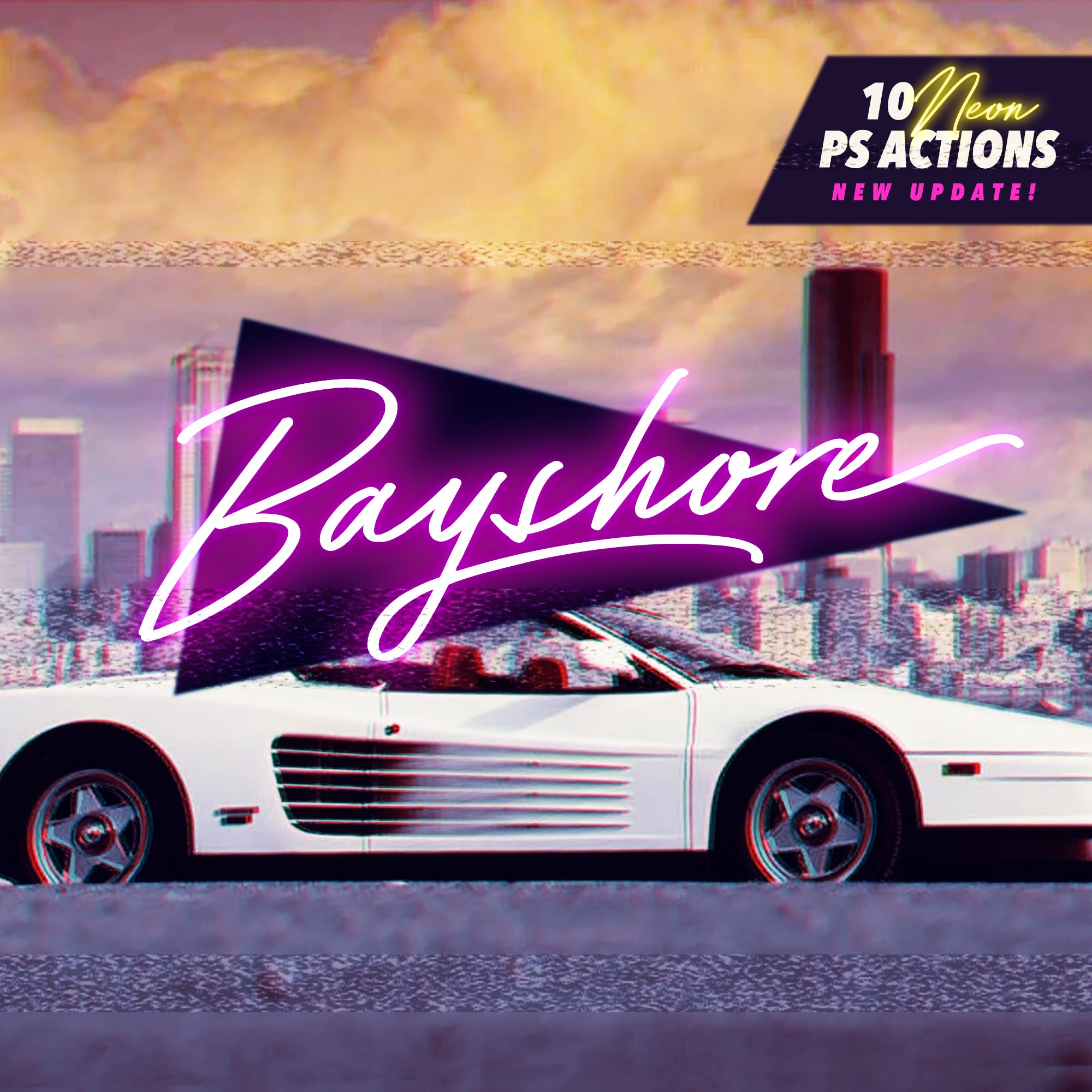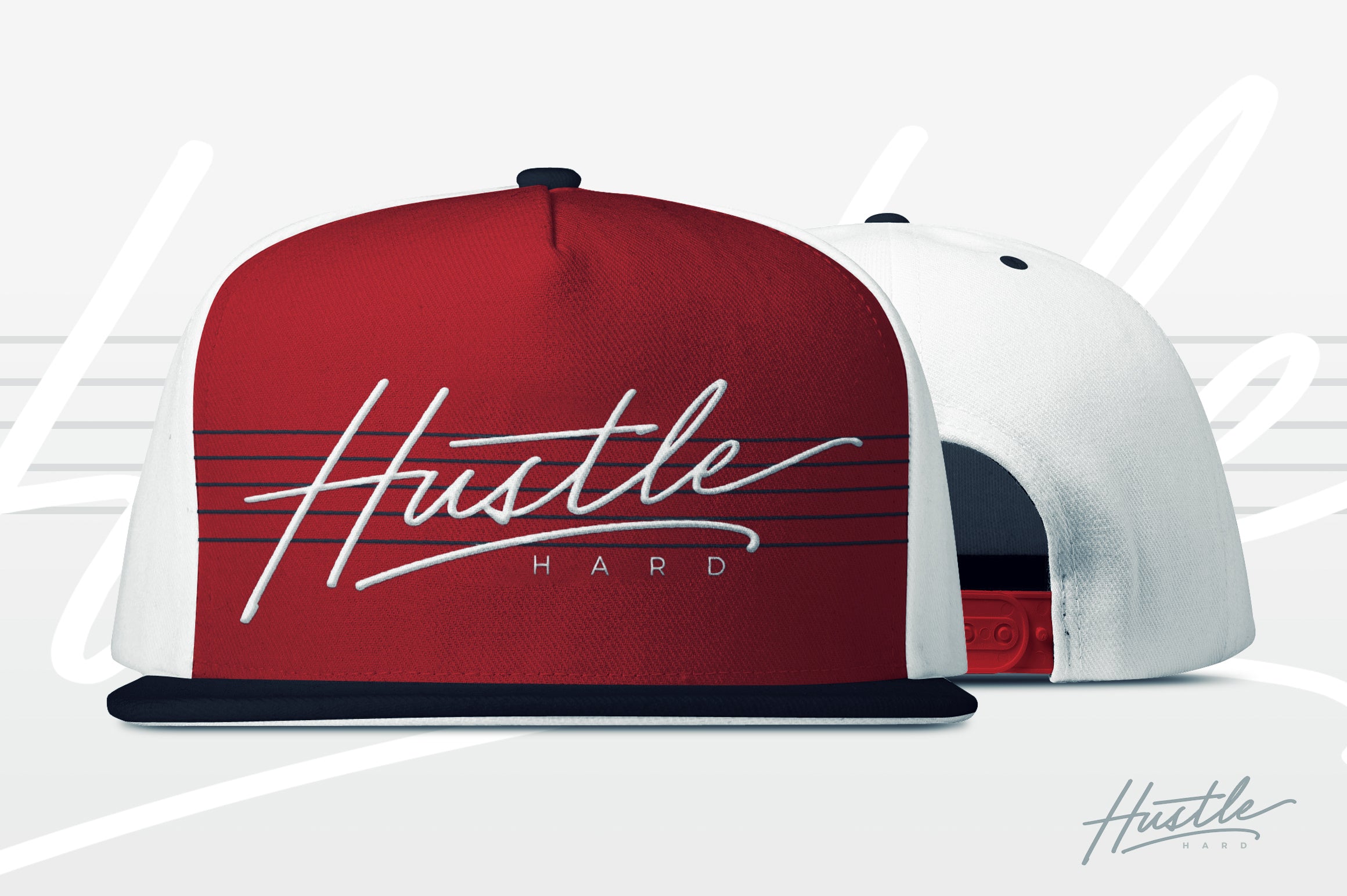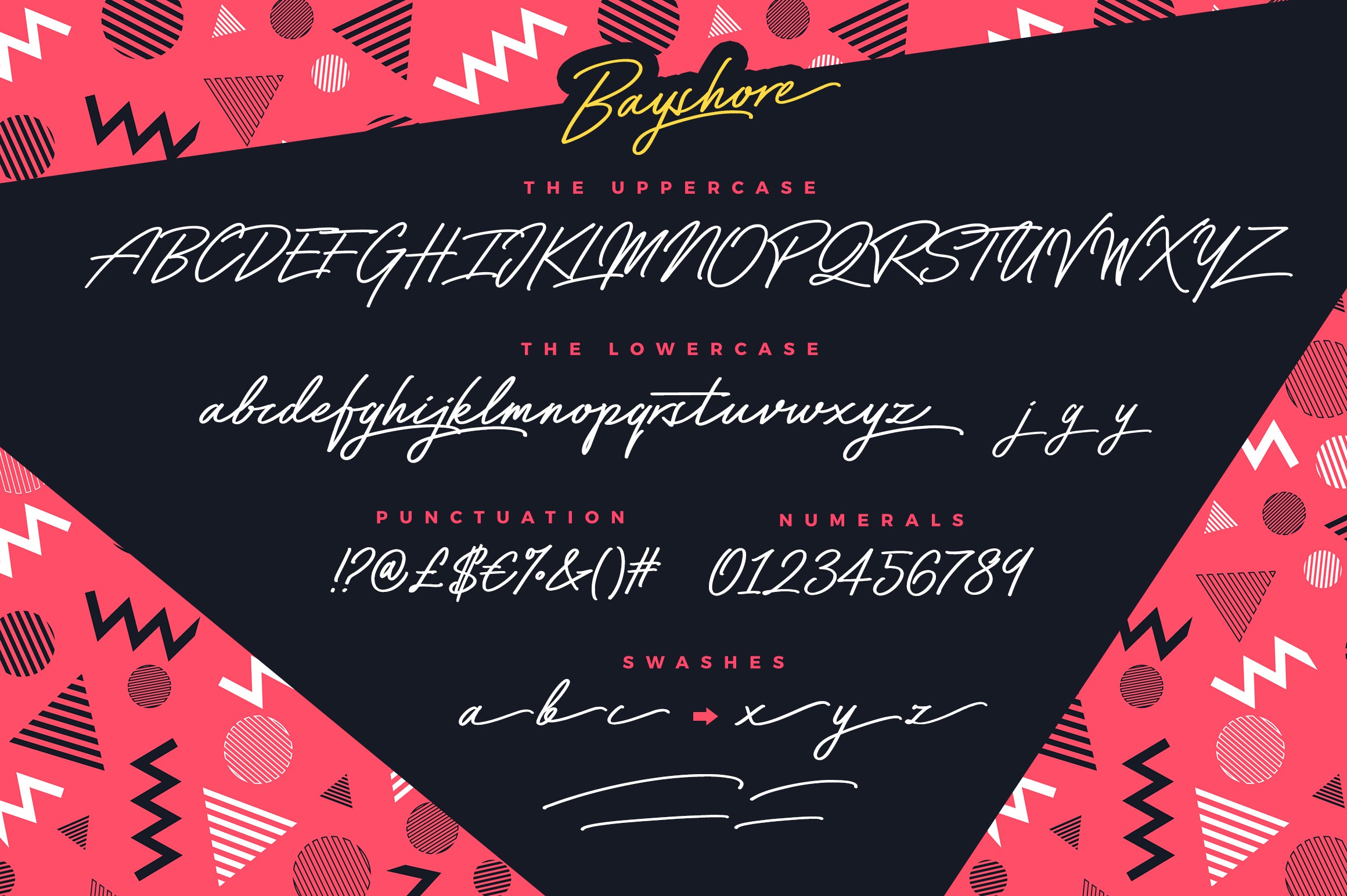
Bayshore Font + Neon Glow Styles
Bayshore Font + Neon Glow Styles is a hand-drawn mono-line script font inspired by the 1980s, featuring a complete upper and lowercase character set, punctuation, and multilingual support. It includes customizable end swashes for lower-case letters, underline swashes, and 10 neon glow Photoshop styles for enhanced visual effects.